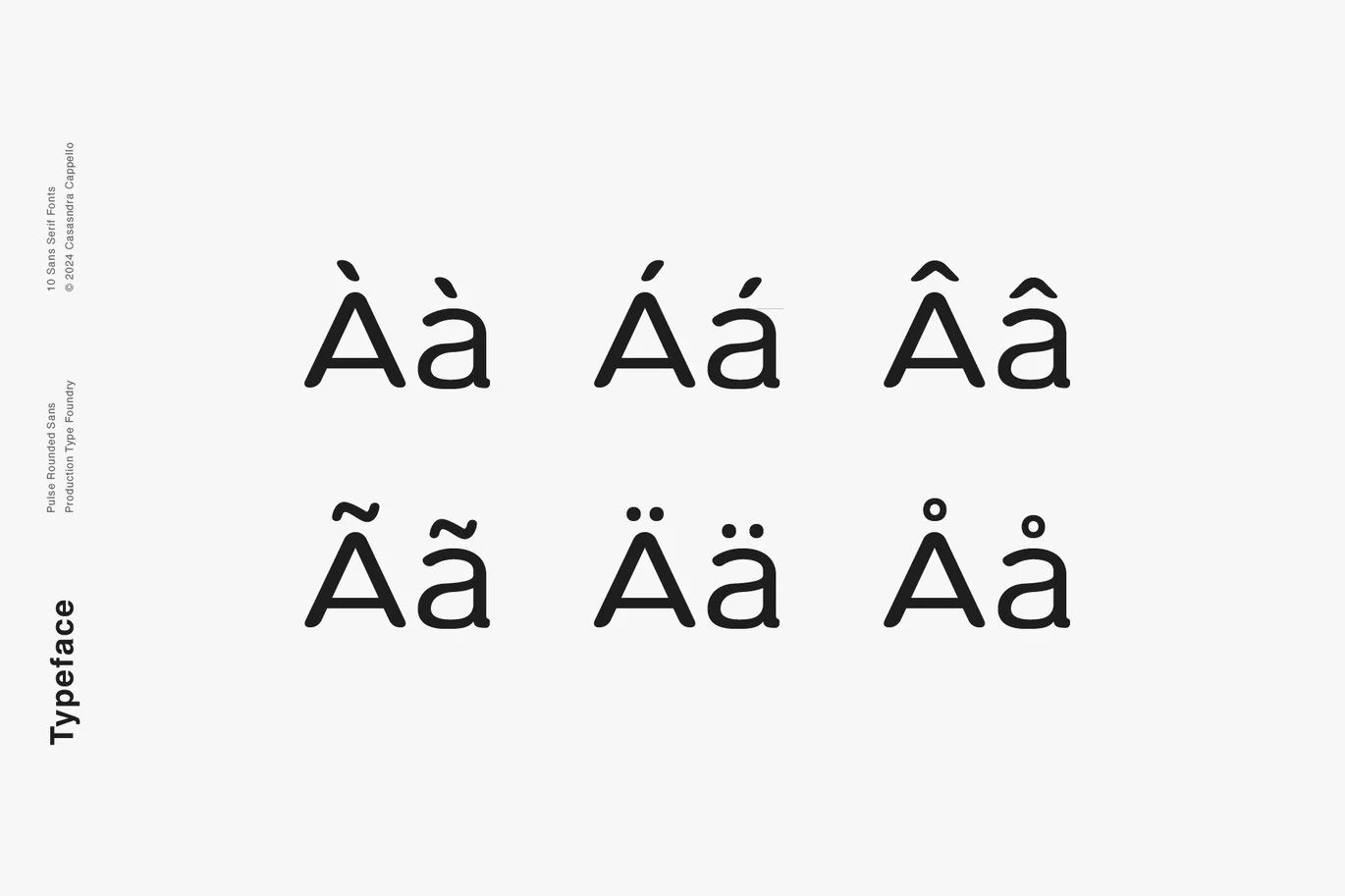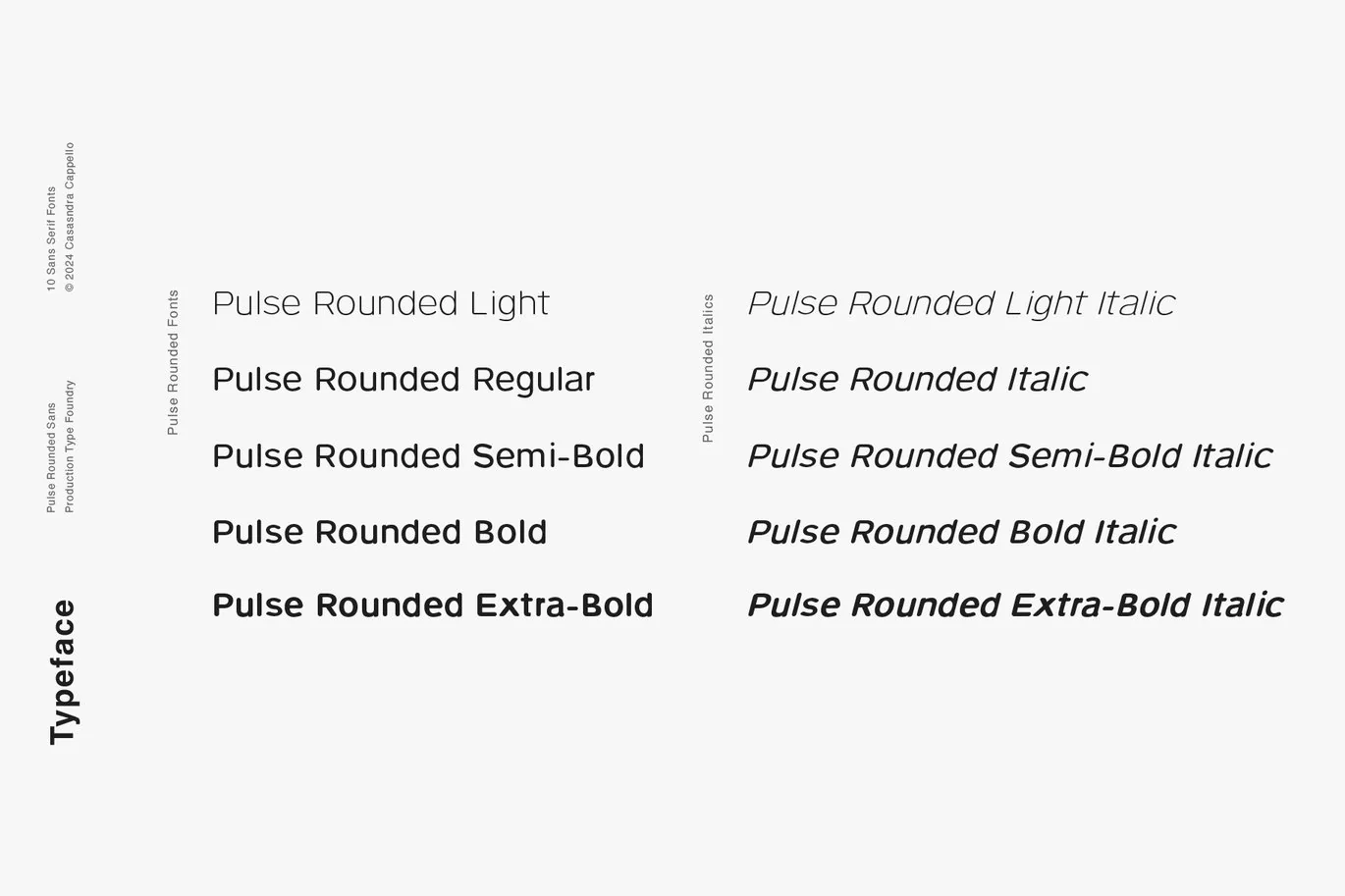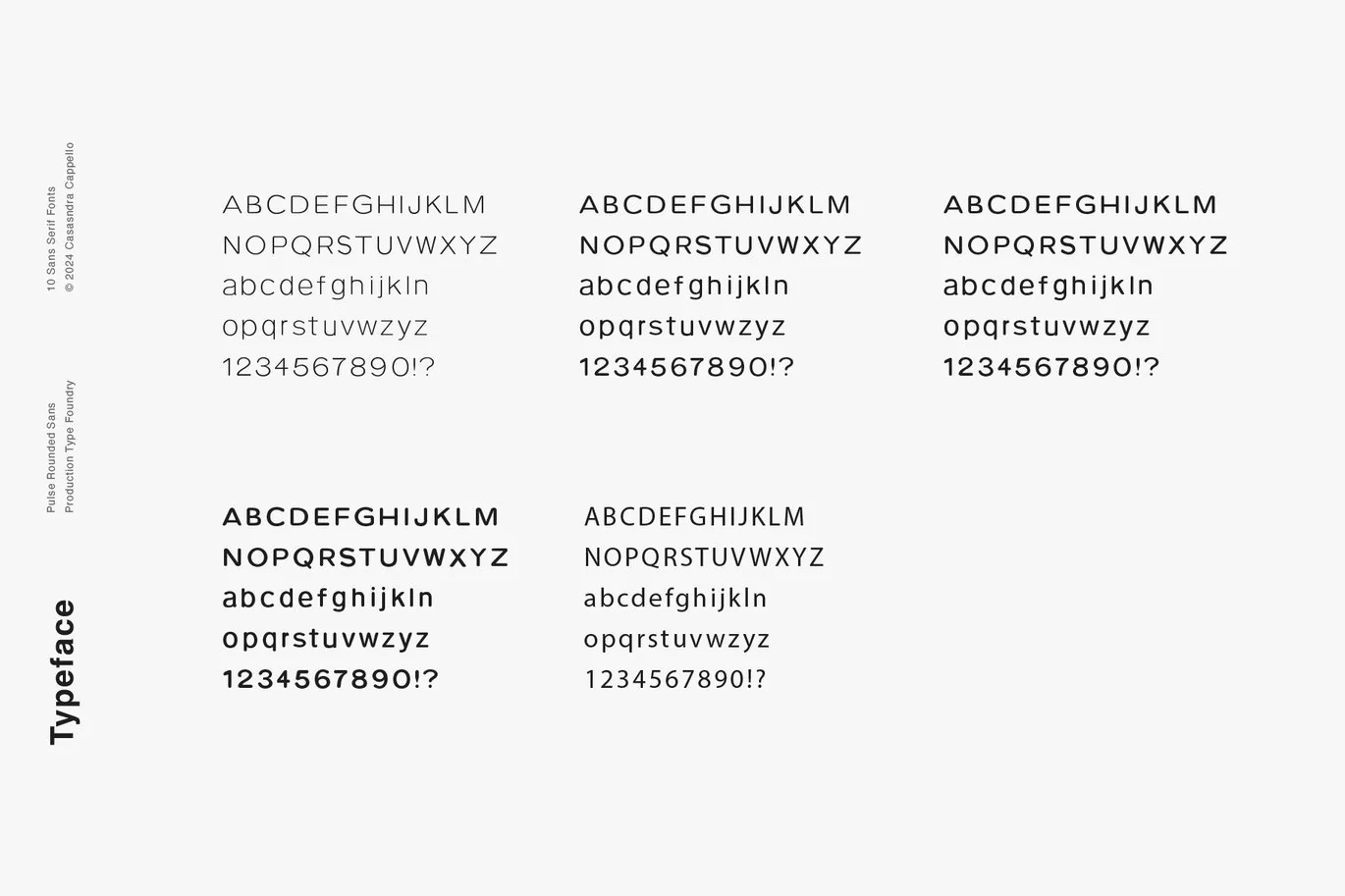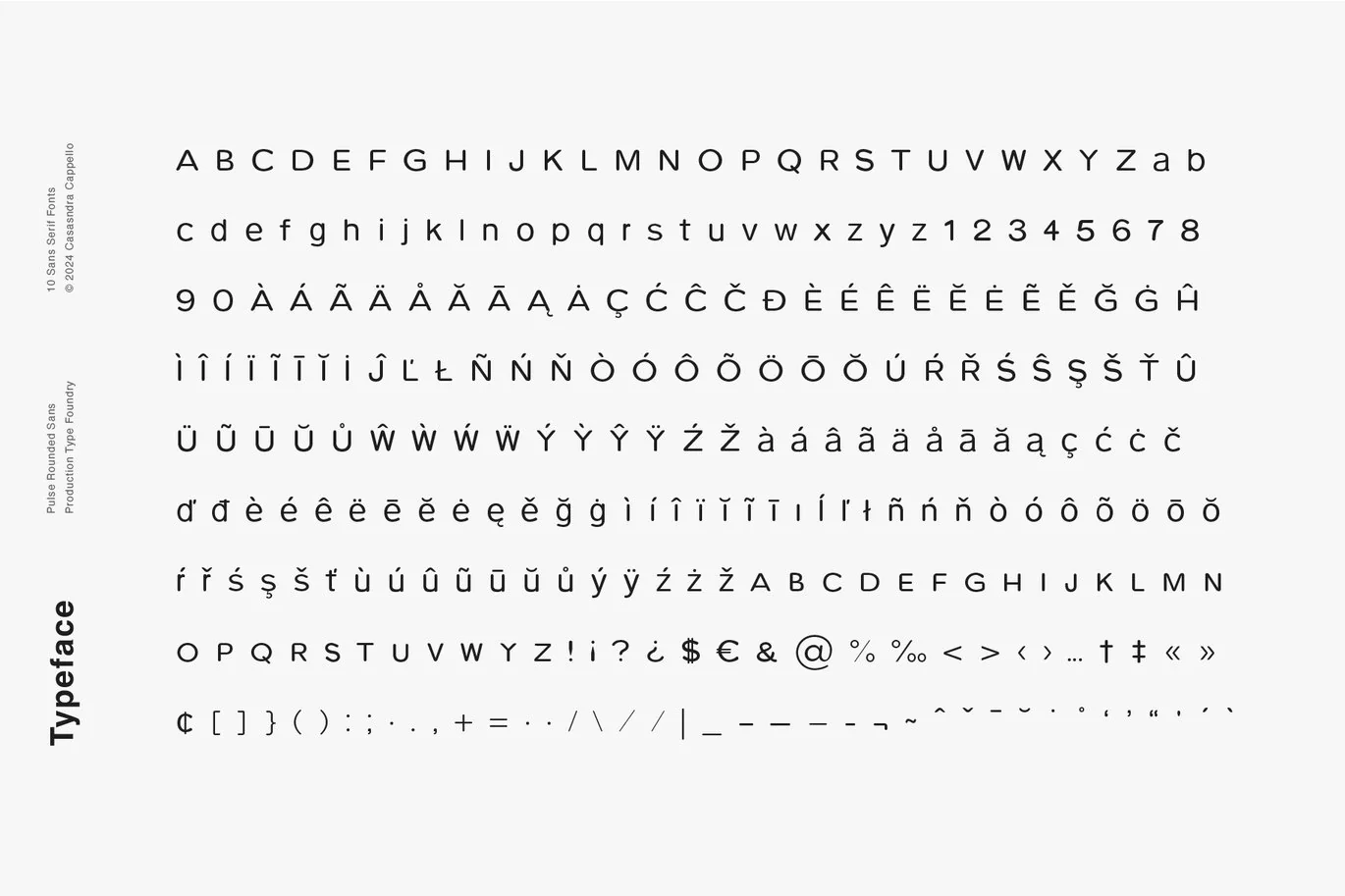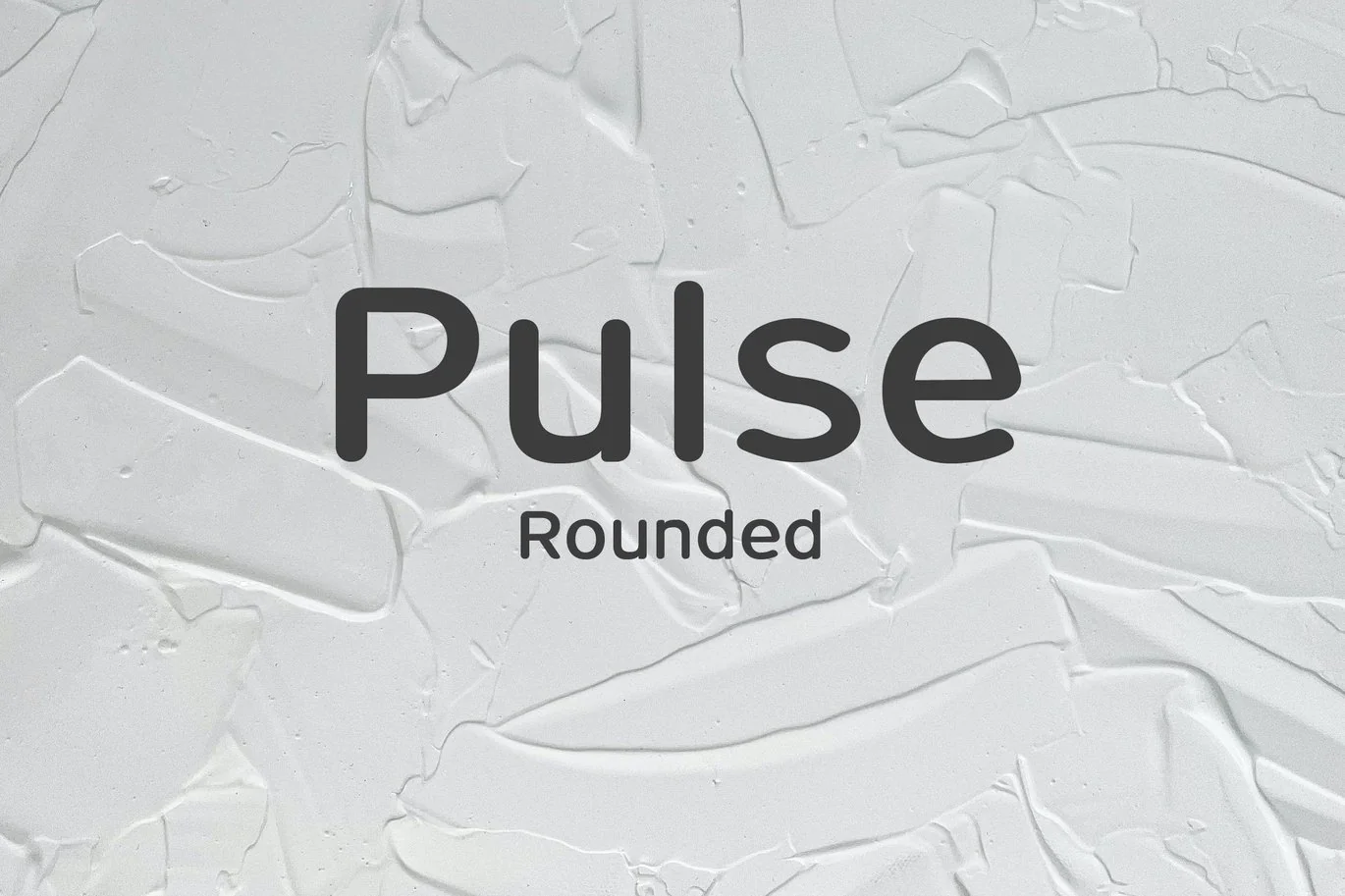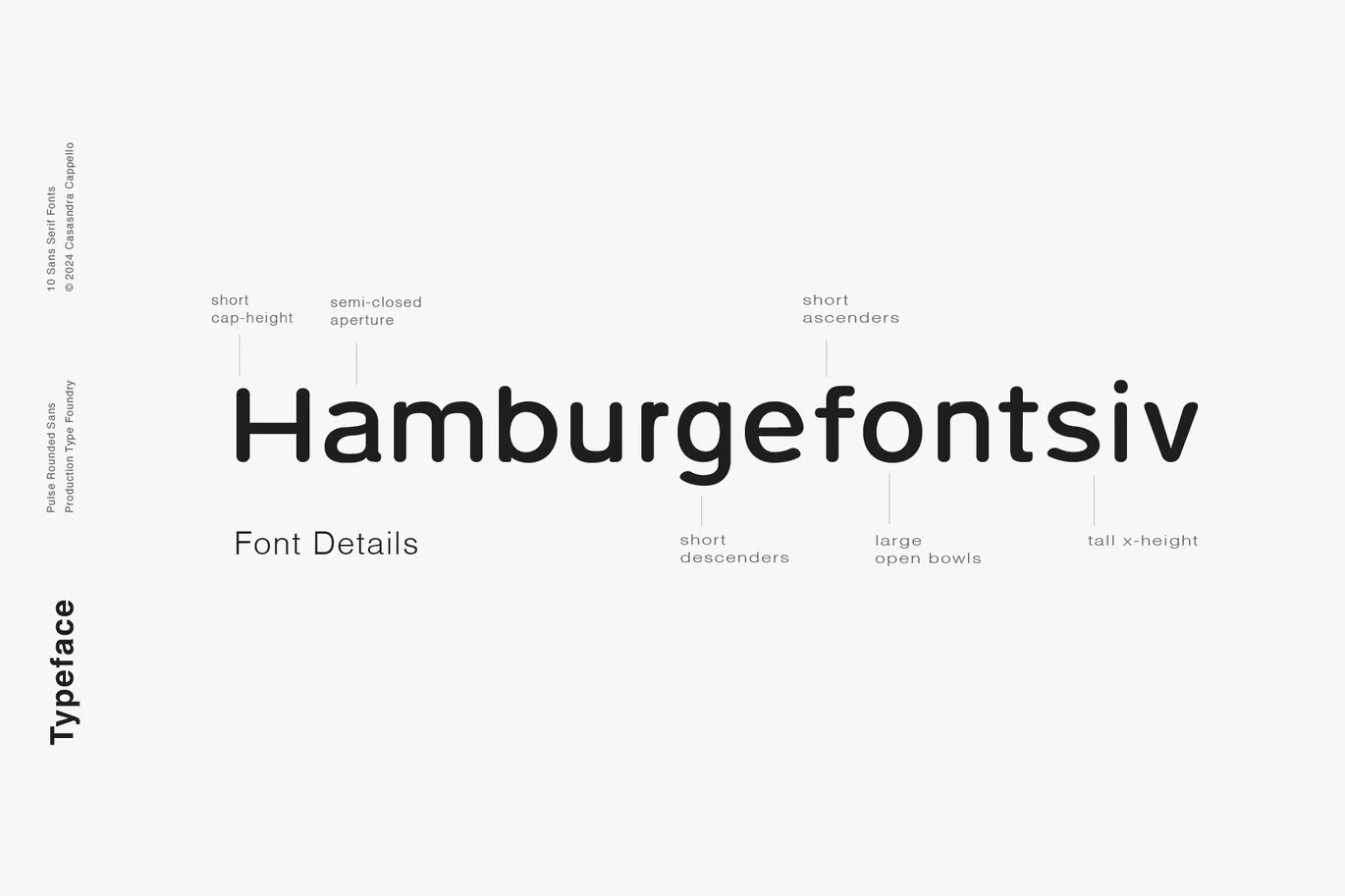
Pulse Rounded – A Modern Typeface
Pulse Rounded is a minimal, classic sans serif typeface. It has a little bit of personality and can be used for both headers and body copy. This font family includes all Latin characters (including accents), numbers, special characters, and punctuation.